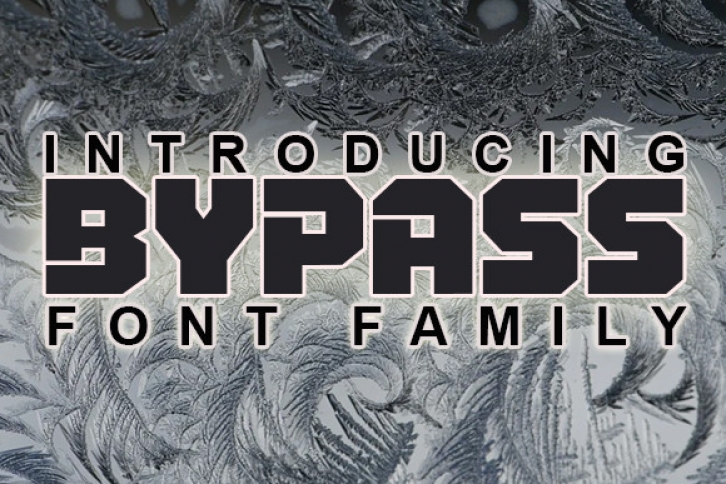
Bypass is an awesome and thick lettered display font. It is perfect for any branding project such as logos, t-shirt printing, creative products, or pretty much anything that could benefit from a futuristic vibe.